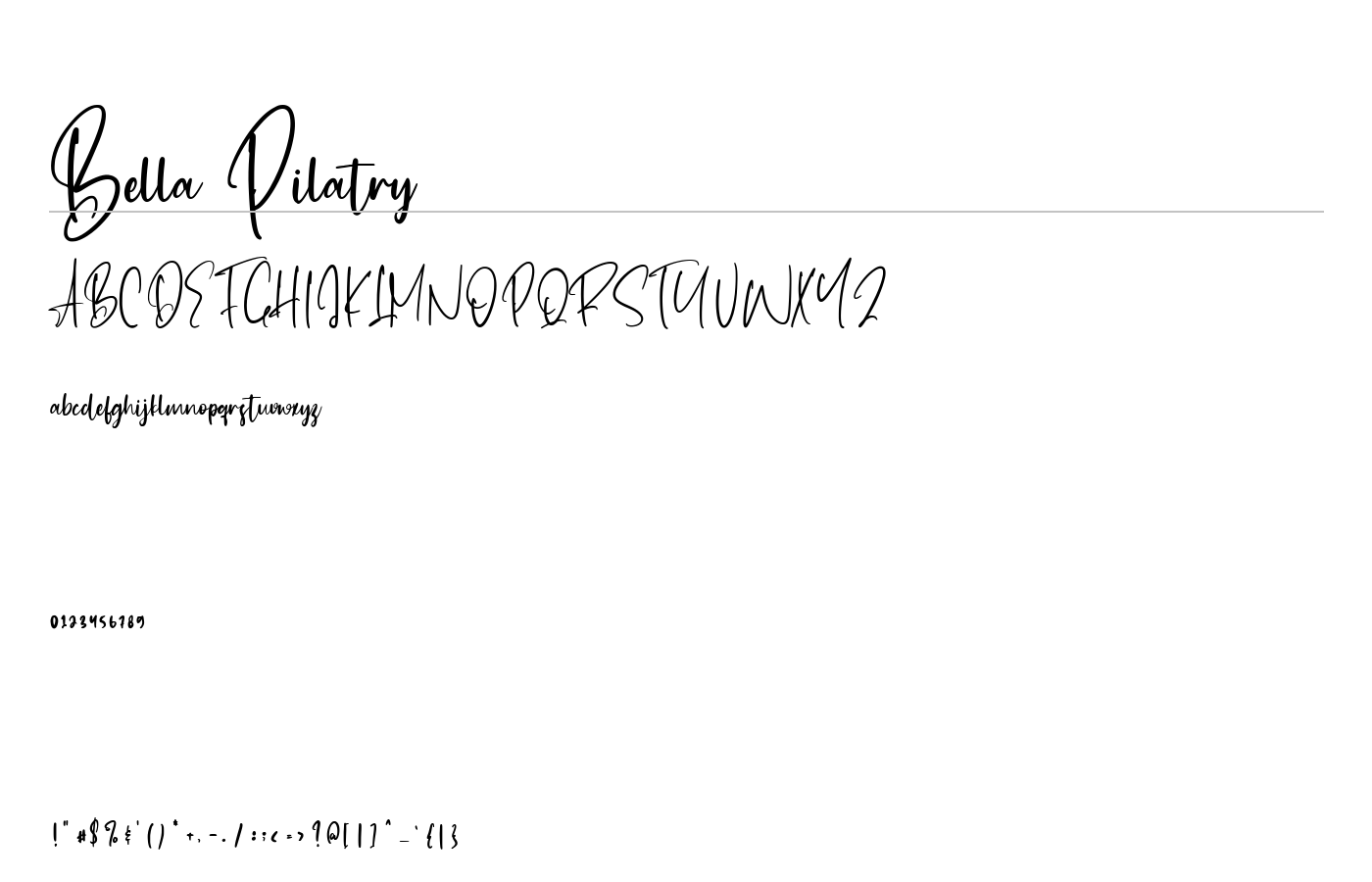
Bella Pilatry is a delicate, handwritten script font featuring tall, slender letterforms with elegant, flowing strokes and a casual yet refined style. Its narrow, airy design and distinctive uppercase characters make it perfect for adding a personal, artistic touch to branding, invitations, and stylish editorial projects where a graceful and approachable feel is desired.
Bella Pilatry Font
About Bella Pilatry Font